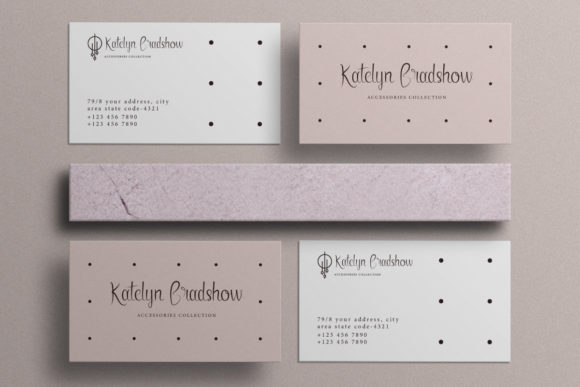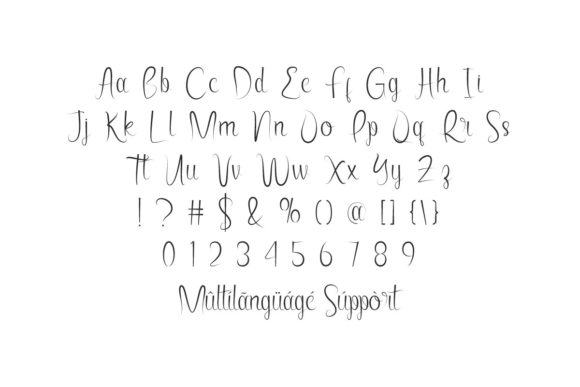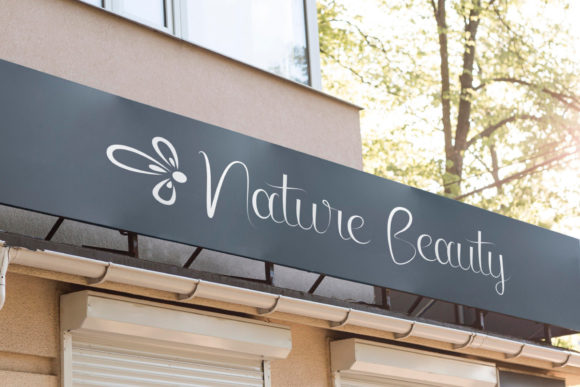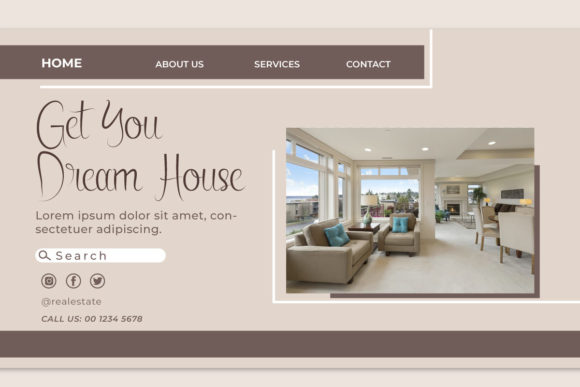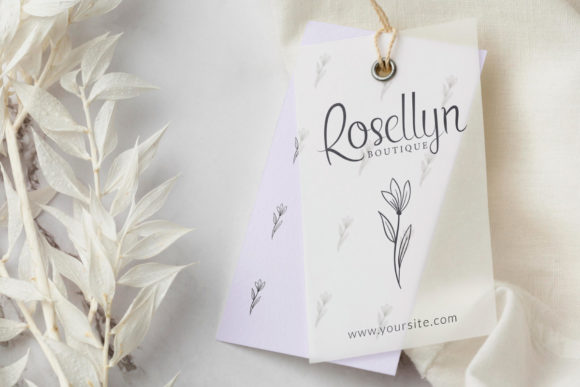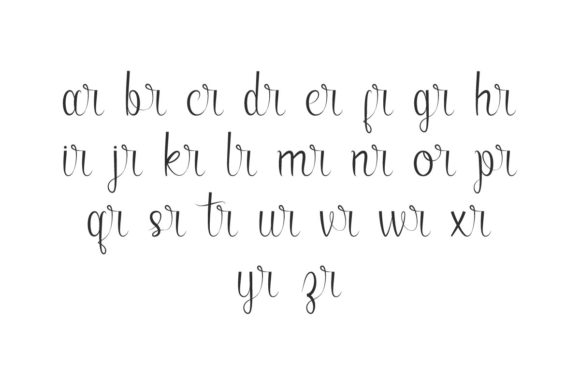
Introduction to Krystal Ellen Font Font
Fonts play a crucial role in design, and the Krystal Ellen Font font is a typeface that brings both character and versatility to any project. Whether you’re working on a branding project, a website, or a print design, the Krystal Ellen Font font offers a unique style that can elevate your work.
Krystal Ellen is a free-flowing script font created for packaging products, invitation cards, flyers, mockups, event posters, and anything else that requires high-quality vibes.
It has a beautiful and balanced character, that fits well with the large design pool This font is PUA encoded which means you can access all of the glyphs and swashes with ease.
The Krystal Ellen Font font is more than just a typeface – it’s a design tool that helps you communicate your message with style and clarity. Its unique character set and versatile design make it suitable for a wide range of applications, from elegant invitations to bold headlines.
With its carefully crafted letterforms and balanced proportions, the Krystal Ellen Font font ensures readability and visual appeal across all mediums.
The Krystal Ellen Font font stands out with its unique design, exceptional readability, and versatility across various design applications.